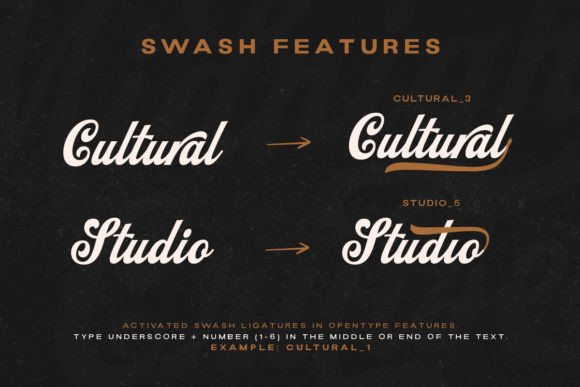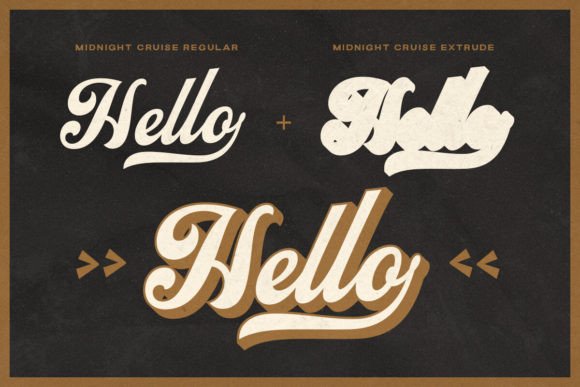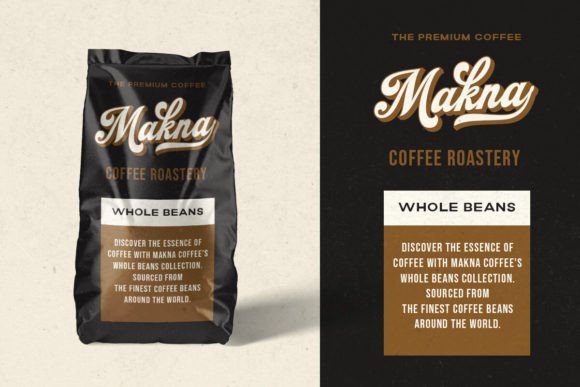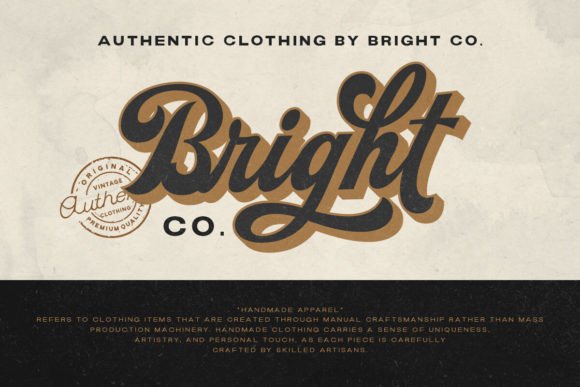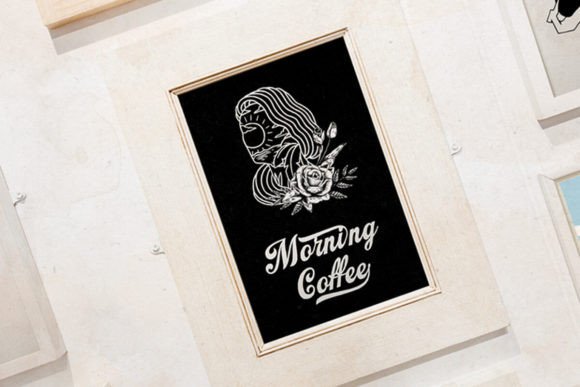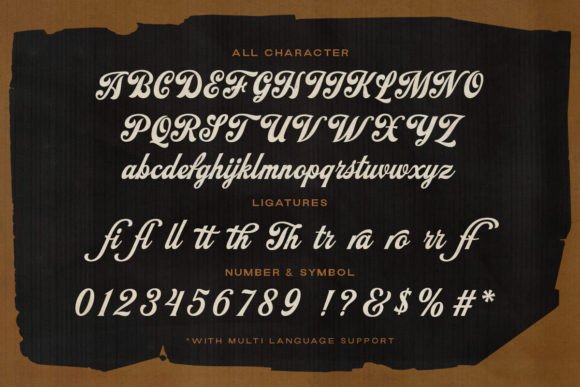
Midnight Cruise Font
Introducing, Midnight Cruise – a standout bold script with a touch of classic looks. This type of font perfectly made to be applied especially in logo, headline, signage and the other various formal forms such as invitations, labels, logos, magazines, books, greeting / wedding cards, packaging, fashion, make up, stationery, novels, labels or any type of advertising purpose.